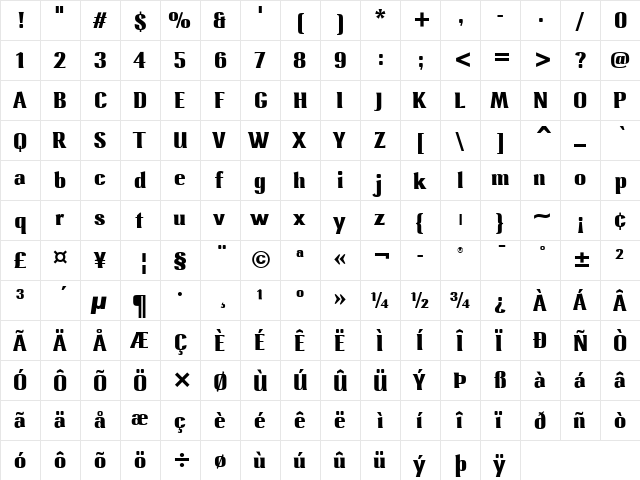
Lennox ITC Bold
Design Context for Lennox ITC Typeface
Lennox ITC takes a measured approach to typography — its balanced proportions and neutral character make it a reliable workhorse for both digital and print work. Its bold stroke weight gives it real presence on the page.